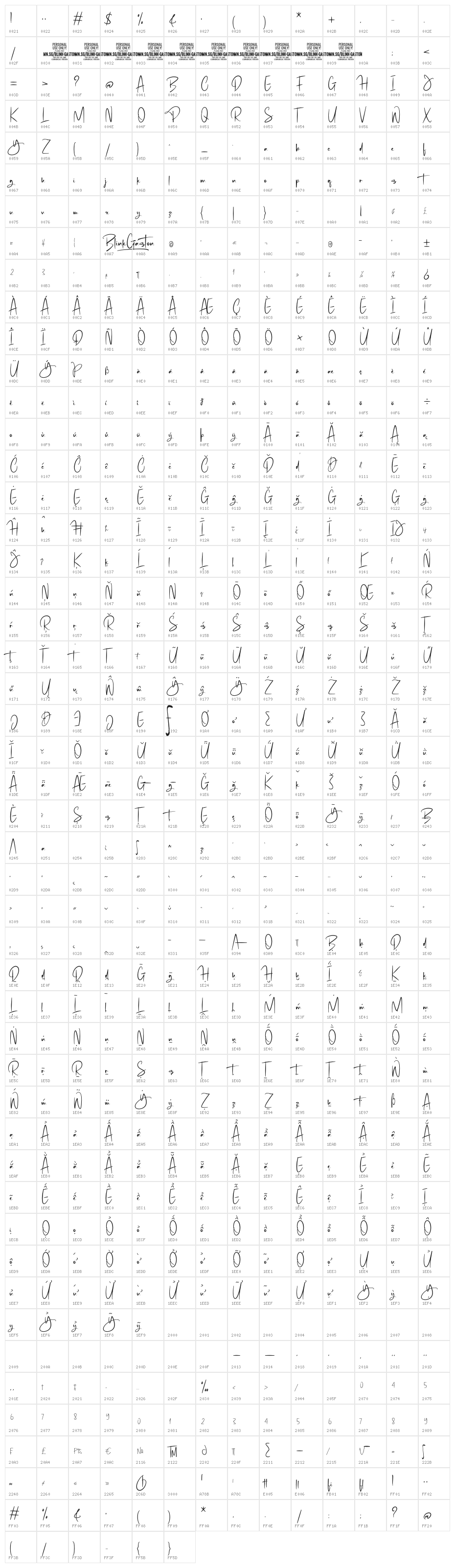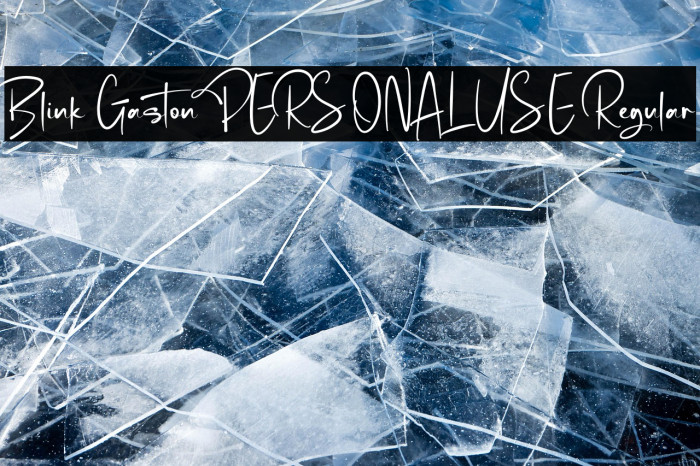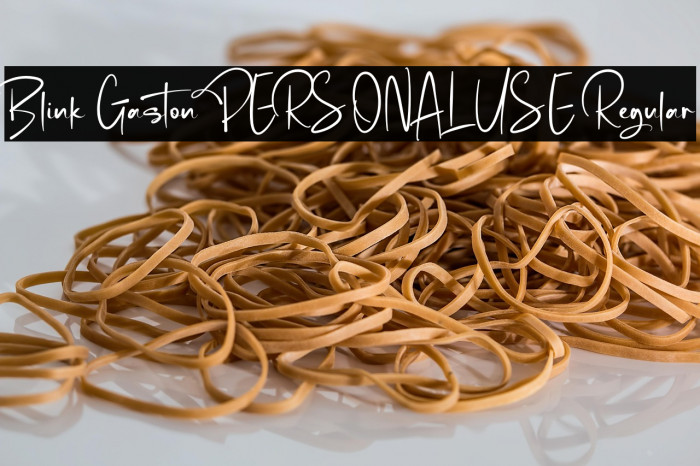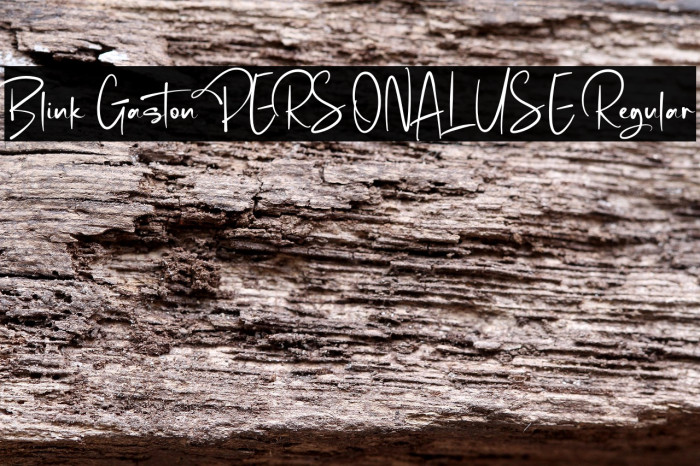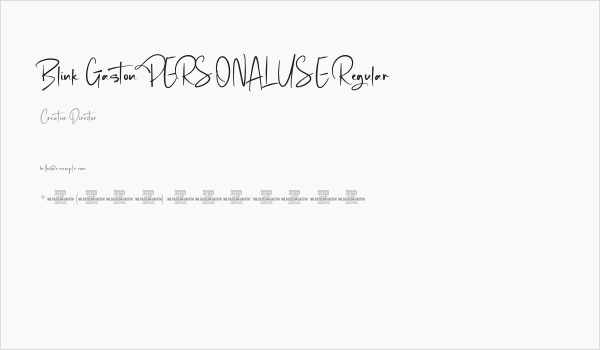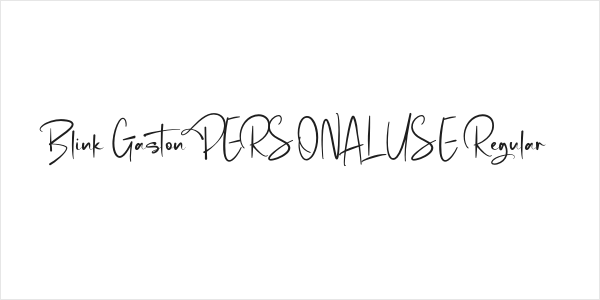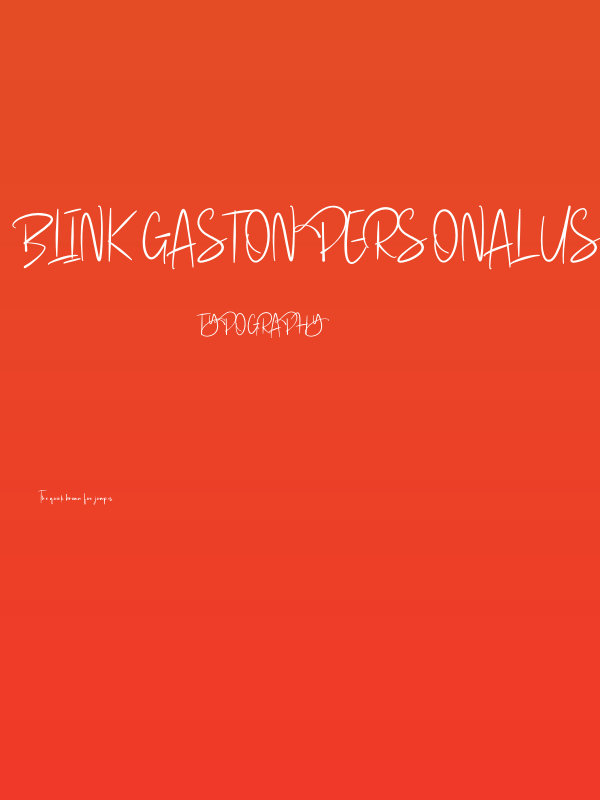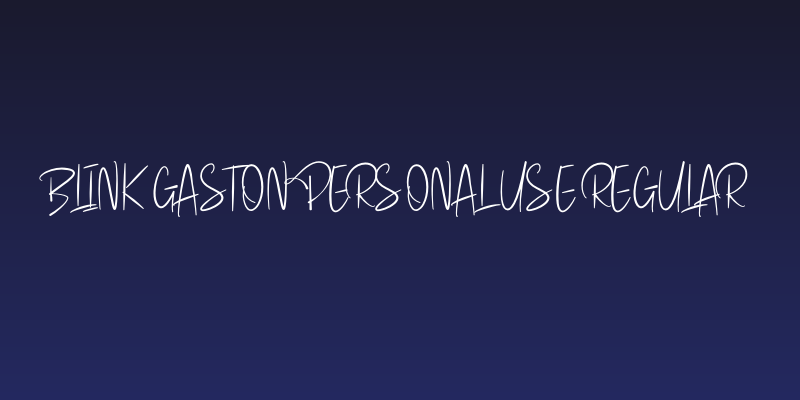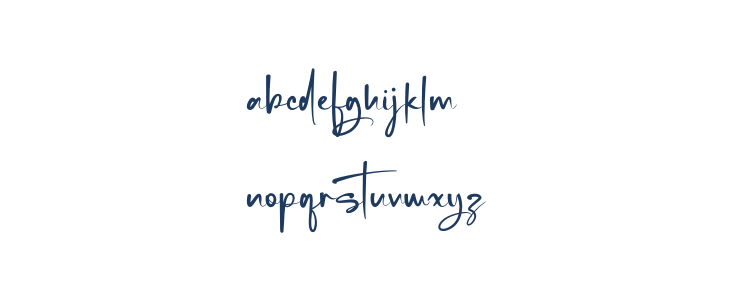
Blink Gaston PERSONAL USE Regular Font
Blink Gaston PERSONAL USE Regular Description
This font features a dynamic and expressive style, characterized by its handwritten appearance. The uppercase letters are tall and narrow, with a playful, artistic flair that includes varying stroke thicknesses and unique character shapes. The lowercase letters maintain a consistent flow, enhancing the handwritten feel with elegant loops and curves. The numbers and special characters complement the alphabet with similar stylistic elements, making the font versatile for creative projects. Its overall design exudes a sense of spontaneity and creativity, perfect for adding a personal touch to any design.